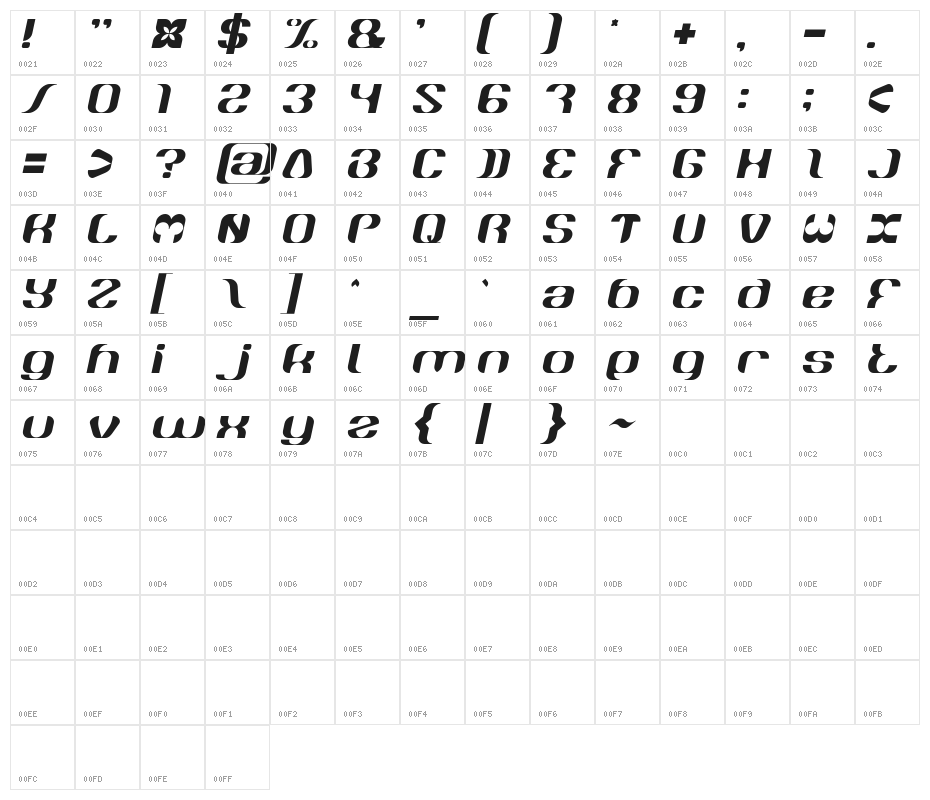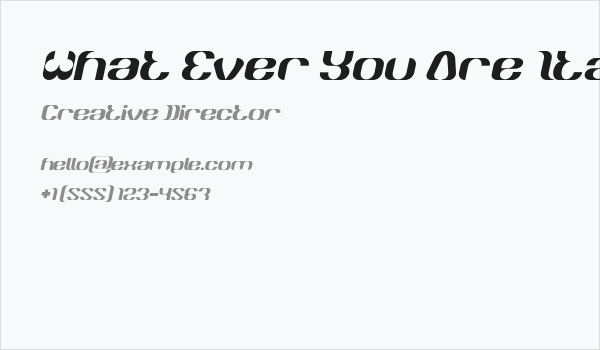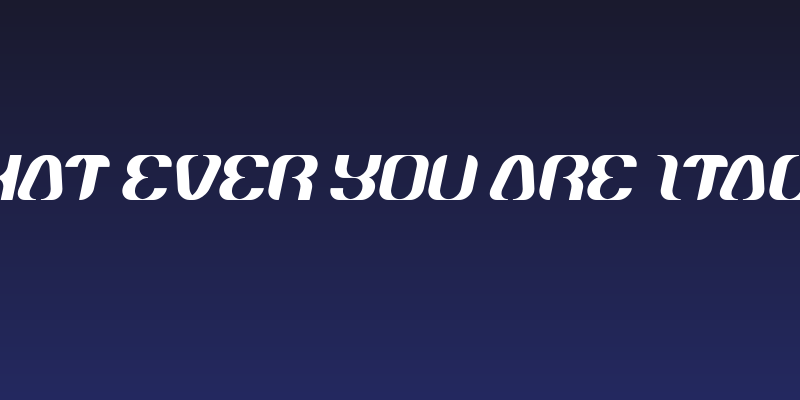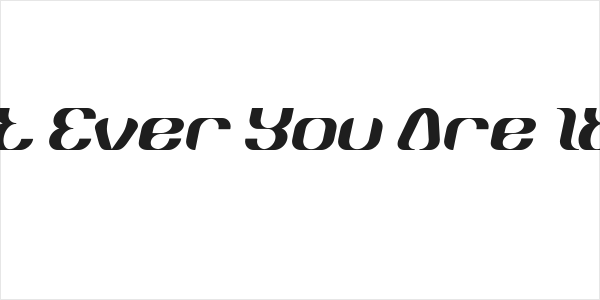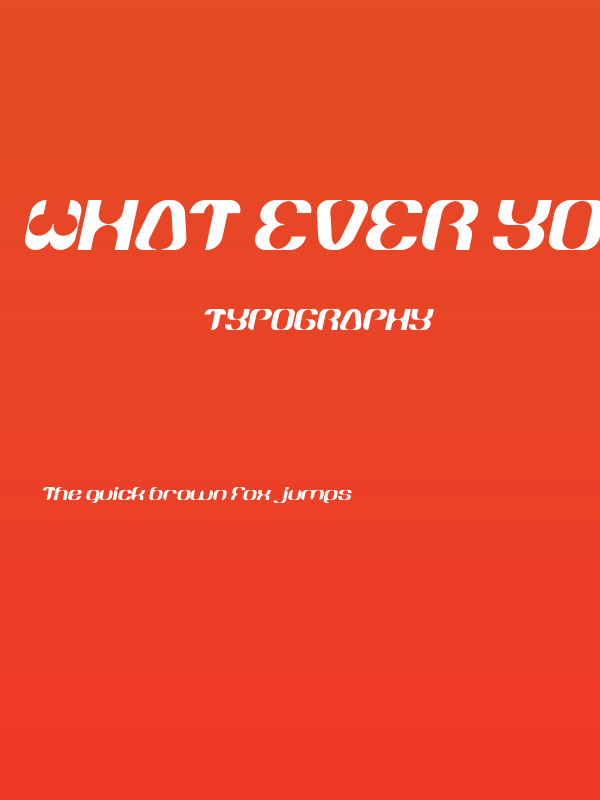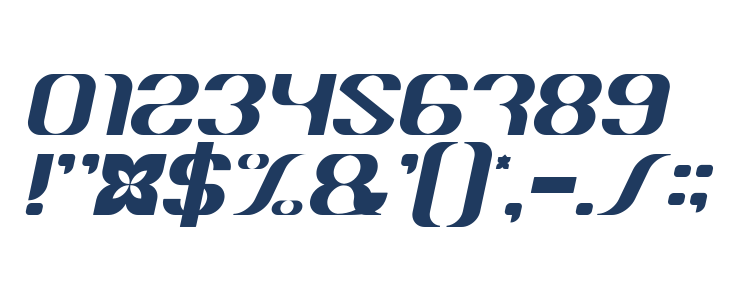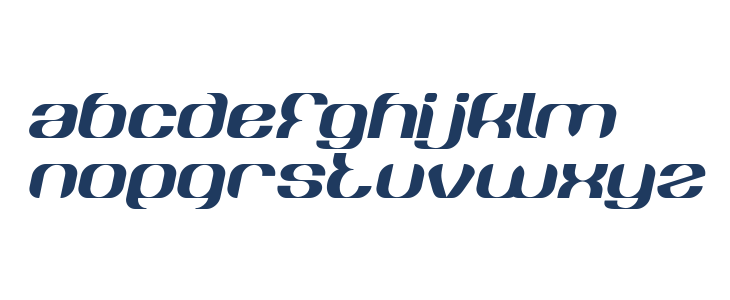
What Ever You Are Italic Font
What Ever You Are Italic Description
This font features a bold, italicized style with a modern flair. The characters are uniquely designed with a slanted orientation, giving them a dynamic and energetic appearance. The strokes are thick, providing a strong visual impact, while the curves and angles add a sense of movement and fluidity. The uppercase and lowercase letters maintain a consistent style, with distinctive shapes that make each character easily recognizable. The numbers and special characters follow the same design principles, ensuring uniformity across the font. This font's boldness and slant make it ideal for projects that require a strong, contemporary look.
| Proposed Projects | Ideal for branding, advertising, posters, and headlines that require a bold and modern aesthetic. |